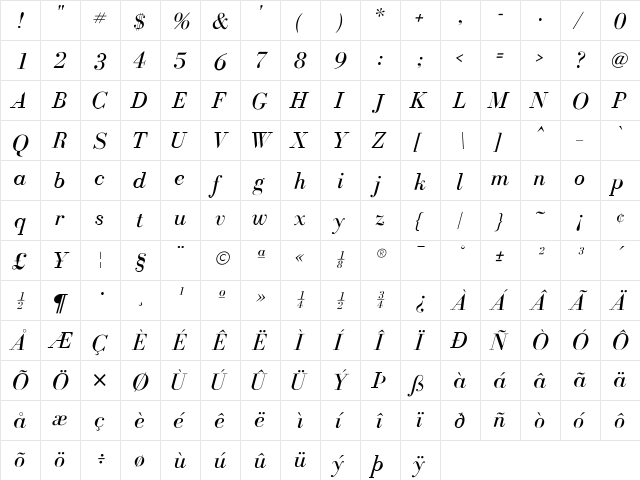
BodoniFLF Medium Italic
Design Context for BodoniFLF Typeface
BodoniFLF is a composed and adaptable typeface that performs quietly and consistently across a wide range of design contexts. The slanted form adds forward momentum and visual energy.
Pro Tip: Try BodoniFLF for annotation and caption copy alongside an upright companion — the contrast in angle creates a dynamic but ordered typographic system.